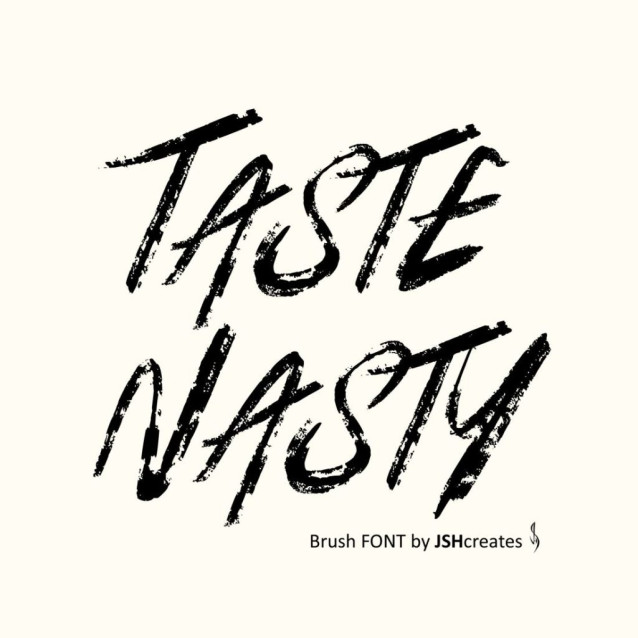
Taste Nasty Font
Taste Nasty Font – Handwritten brush font. Perfect for advertising and display purposes, including banners, book covers, shirts, posters, logos and much more! All caps font, including numbers, punctuation and some characters.